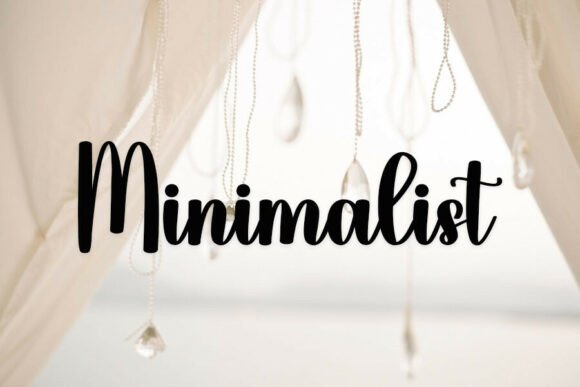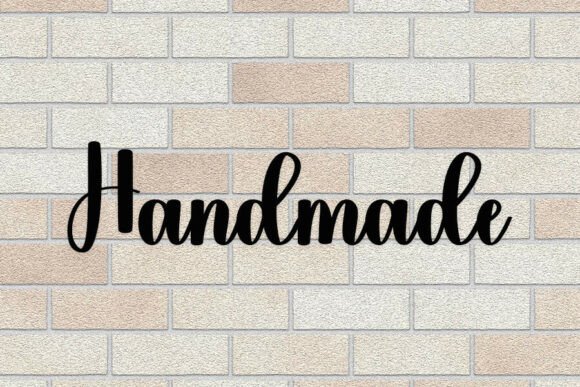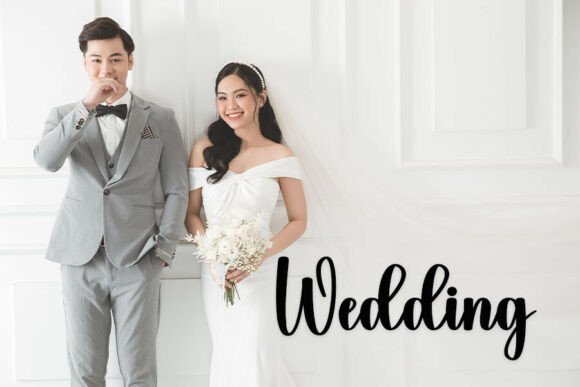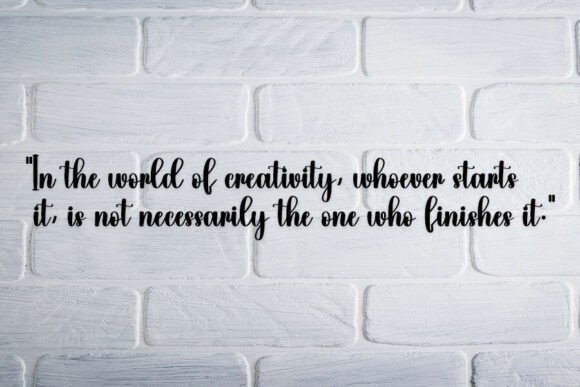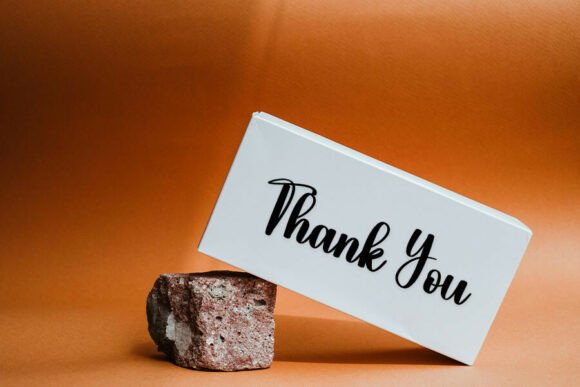
The Sweet Charm of Chewing Gum Font: A Designer’s Delight
I’ll never forget the time I was working on a wedding invitation project, and my client asked for a font that was “joyful, romantic, and elegant, but not too formal.” I scoured the internet, tried out dozens of fonts, but nothing seemed to fit the bill. That was until I stumbled upon the Chewing Gum font. ✨ It was love at first sight! The gentle, cursive script and sweet charm of this font instantly won me over. In this article, I’ll share my experience with Chewing Gum, its features, and how to make the most of it in your designs.
- ✨ Beautiful, cursive handwritten script that’s perfect for romantic and joyful designs
- ✅ Highly versatile and can be used for a variety of projects, from branding to greeting cards
- ✅ Elegant and refined, yet still casual and approachable
- ✅ Works well with both digital and print designs
While Chewing Gum is an amazing font, there are a few things to keep in mind: 🤔
- ⚠️ May not be suitable for very formal or corporate designs, as it can come across as too playful
- ⚠️ Some characters may not work well at very small font sizes, so be sure to test it out
The Story Behind Chewing Gum Font
The Chewing Gum font was designed by a talented type designer who wanted to create a font that captured the sweetness and joy of childhood. Inspired by the classic look of chewing gum packaging, this font is sure to bring a smile to your face. 😊
Q: What type of projects is Chewing Gum best suited for?
A: Chewing Gum is perfect for a variety of projects, including branding, logos, wedding invitations, greeting cards, fashion designs, and marketing promotions.
Q: Is Chewing Gum a difficult font to read?
A: No, Chewing Gum is a clear and legible font, even at smaller font sizes. However, it’s always a good idea to test it out and ensure it works well for your specific design.
Q: Can I use Chewing Gum with other fonts?
A: Absolutely! Chewing Gum pairs well with a variety of fonts, from clean sans-serifs to elegant scripts. Experiment with different combinations to find the perfect look for your design.